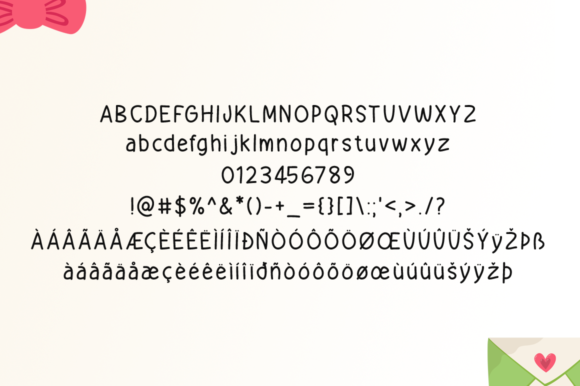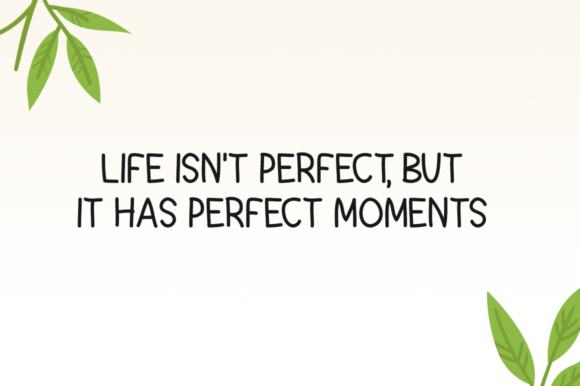
Just Believe Font
db-ku.com - Script & Handwritten -- Just Believe is a simple and organic handwritten font. Natural and a bit quirky, this font will brighten up each of your designs. Add it confidently to your projects, and you will love the results.